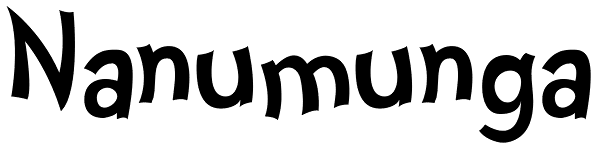
Nanumunga
Insigne is pleased to release Nanumunga, inspired by the carefree antics of tropical fish. Designers will find this typeface is useful whenever a relaxed and lighthearted typeface is required. Nanumunga is a versatile face. The font includes small...